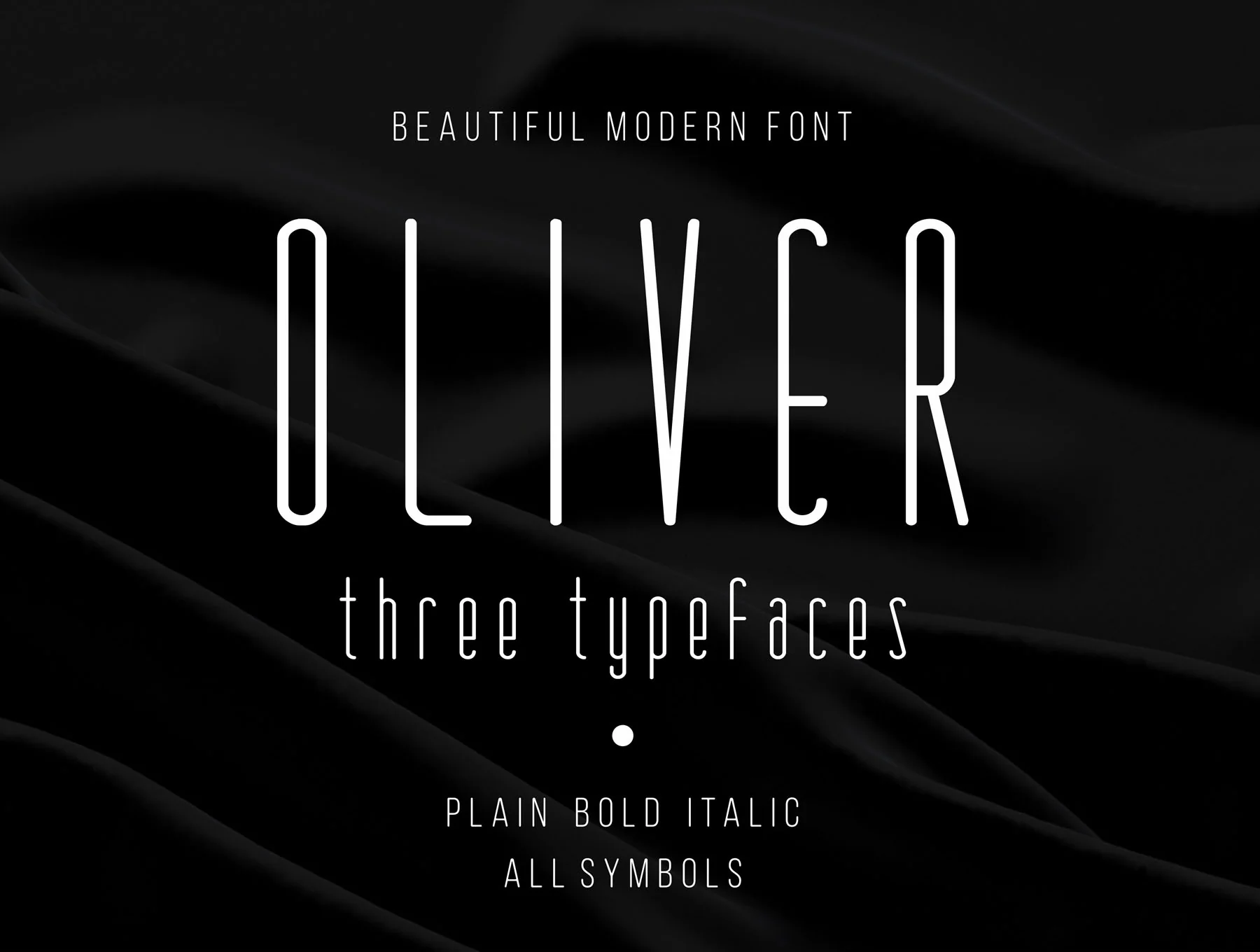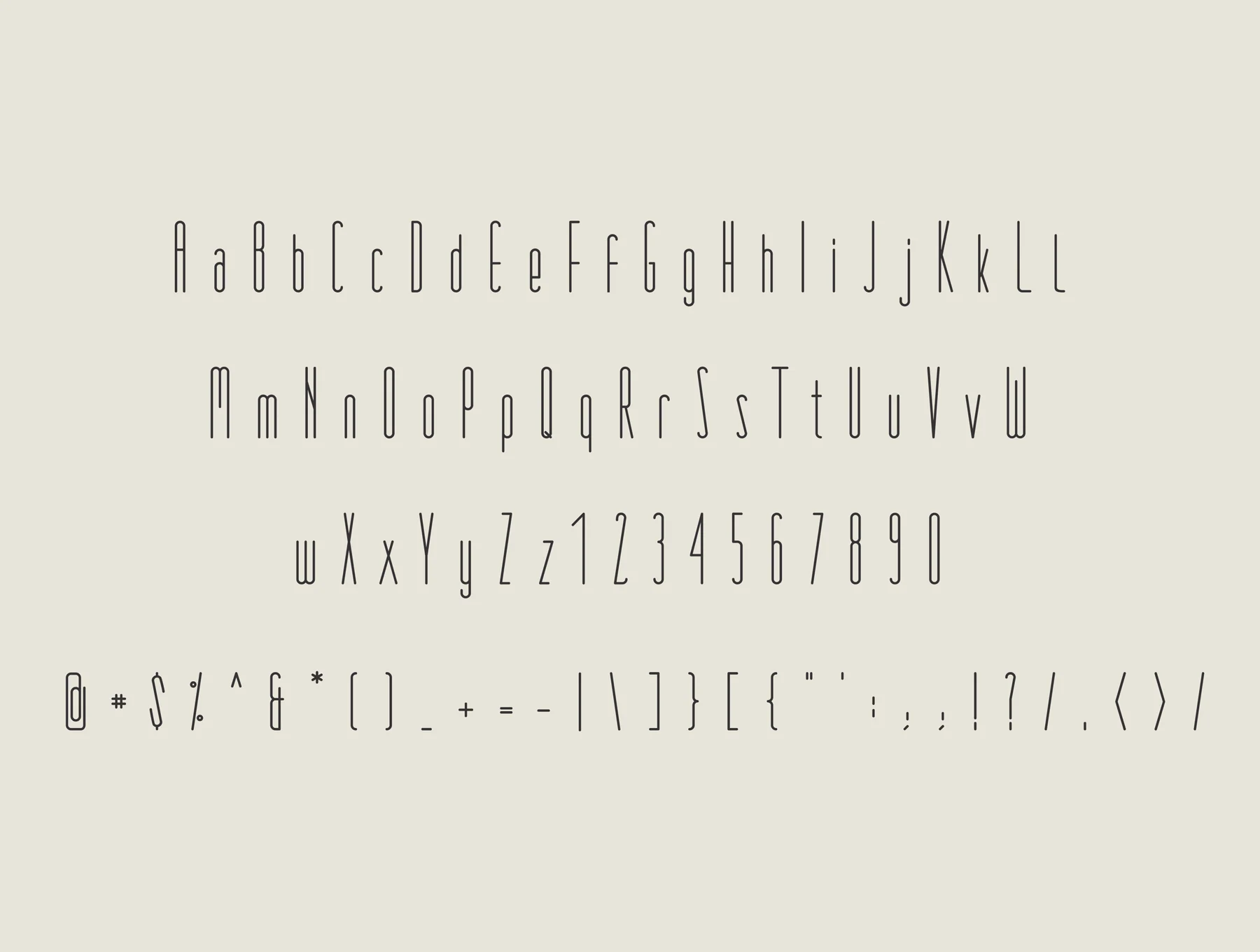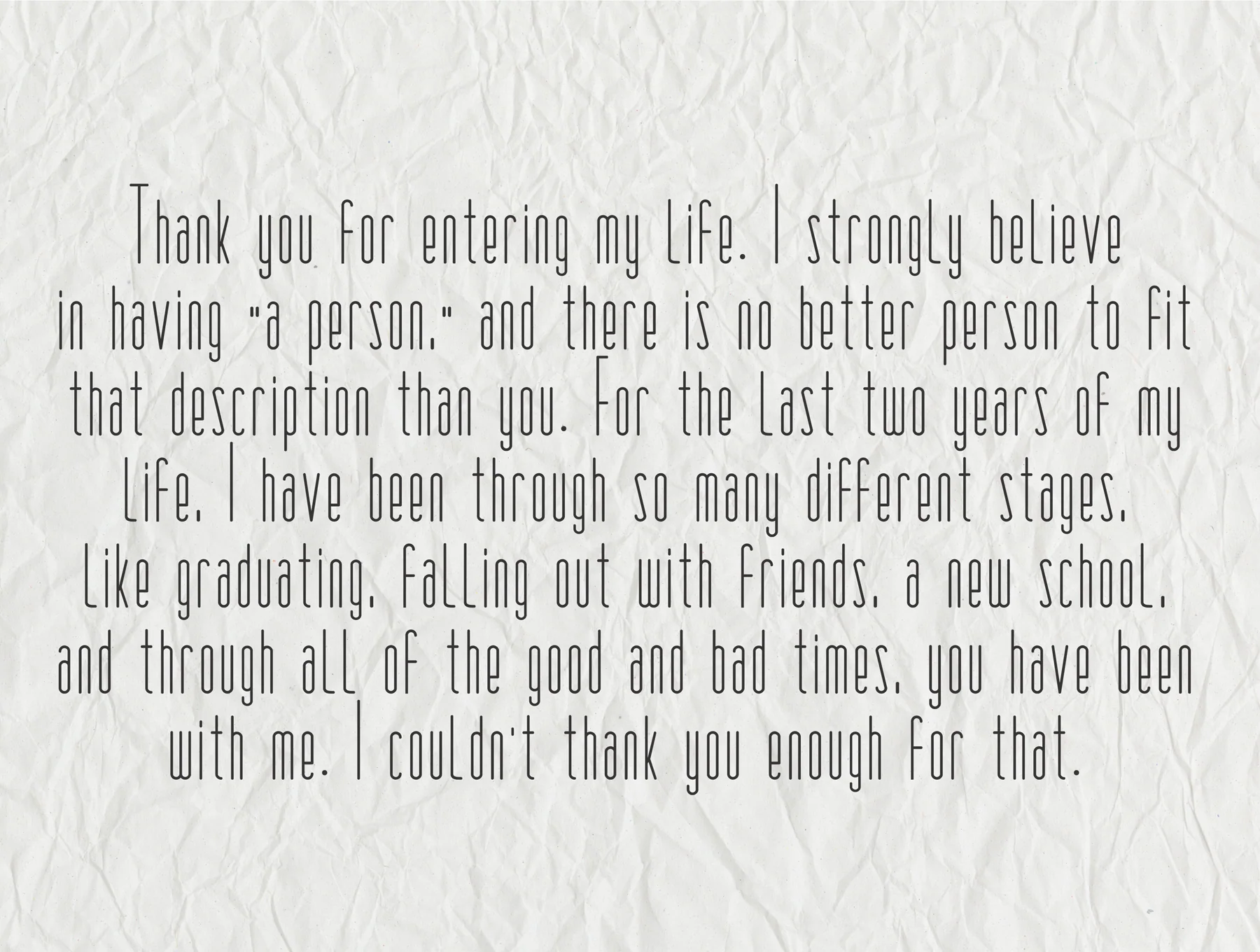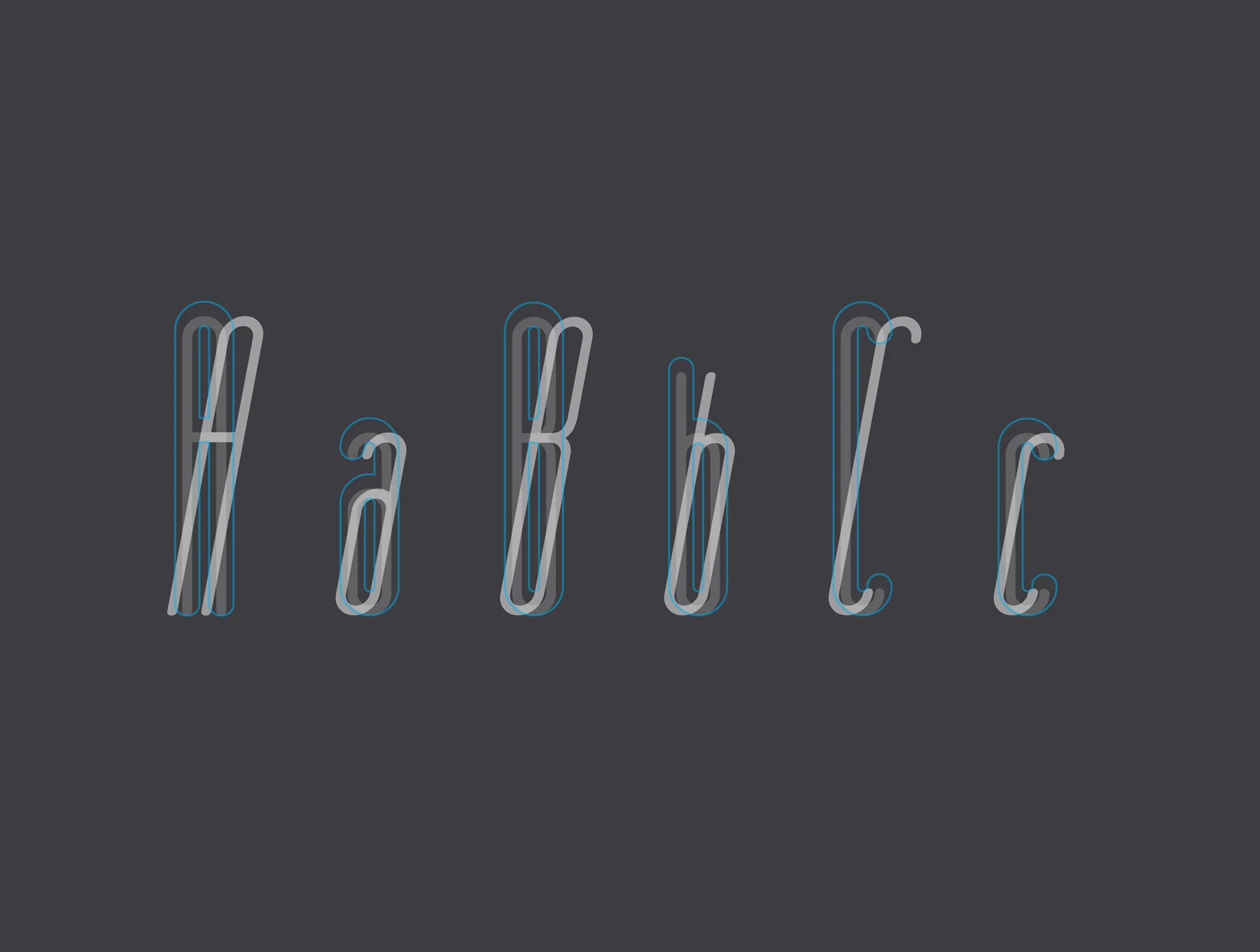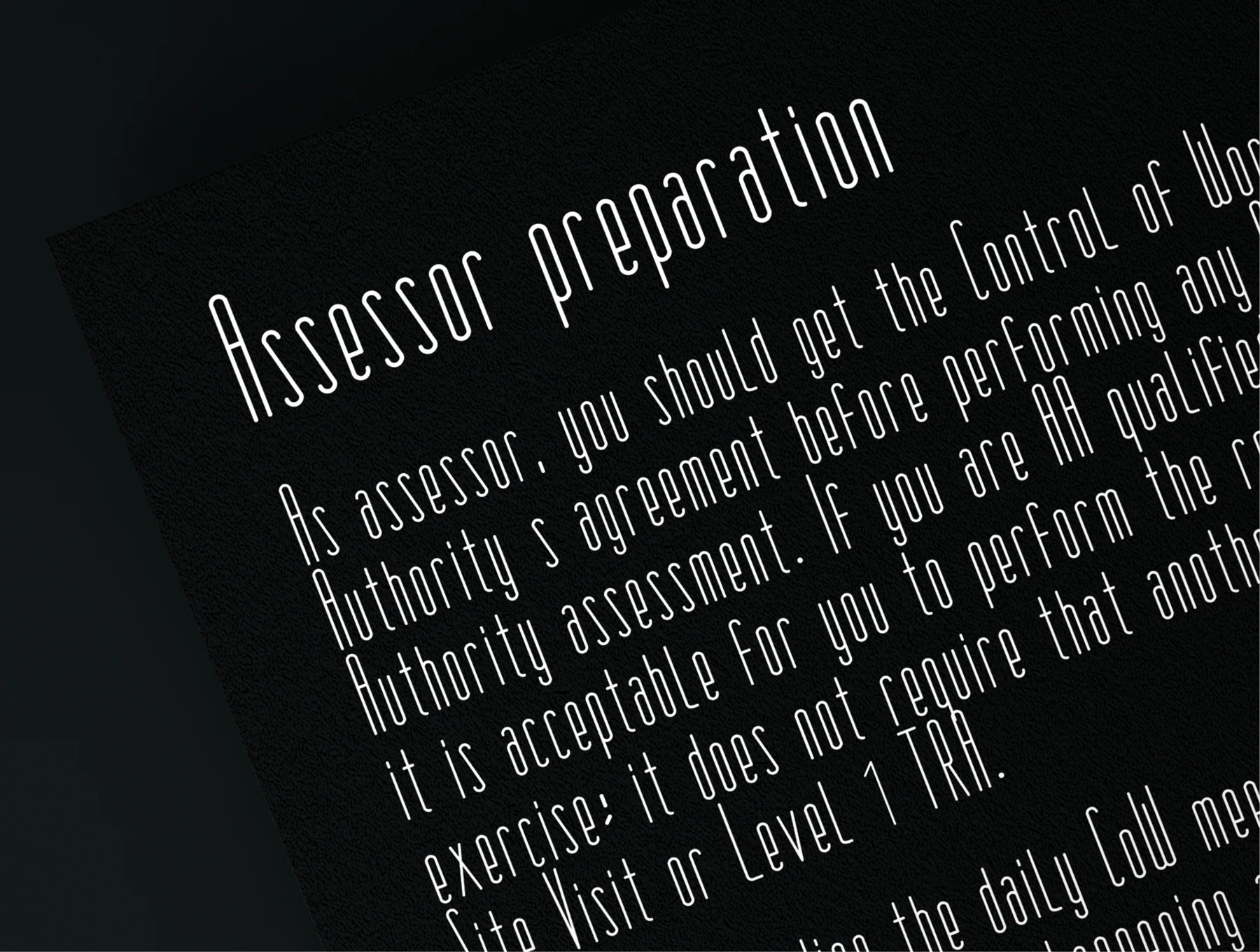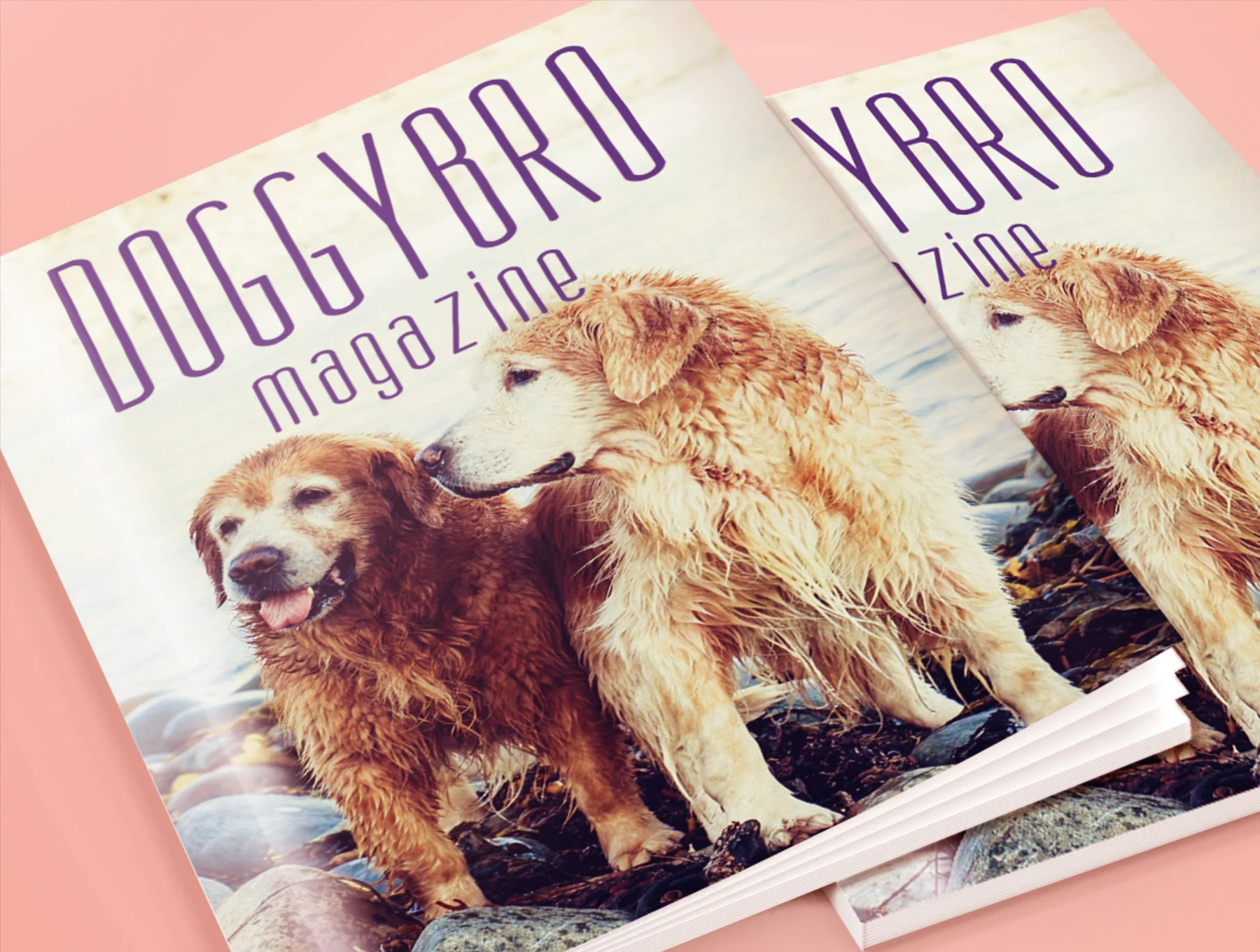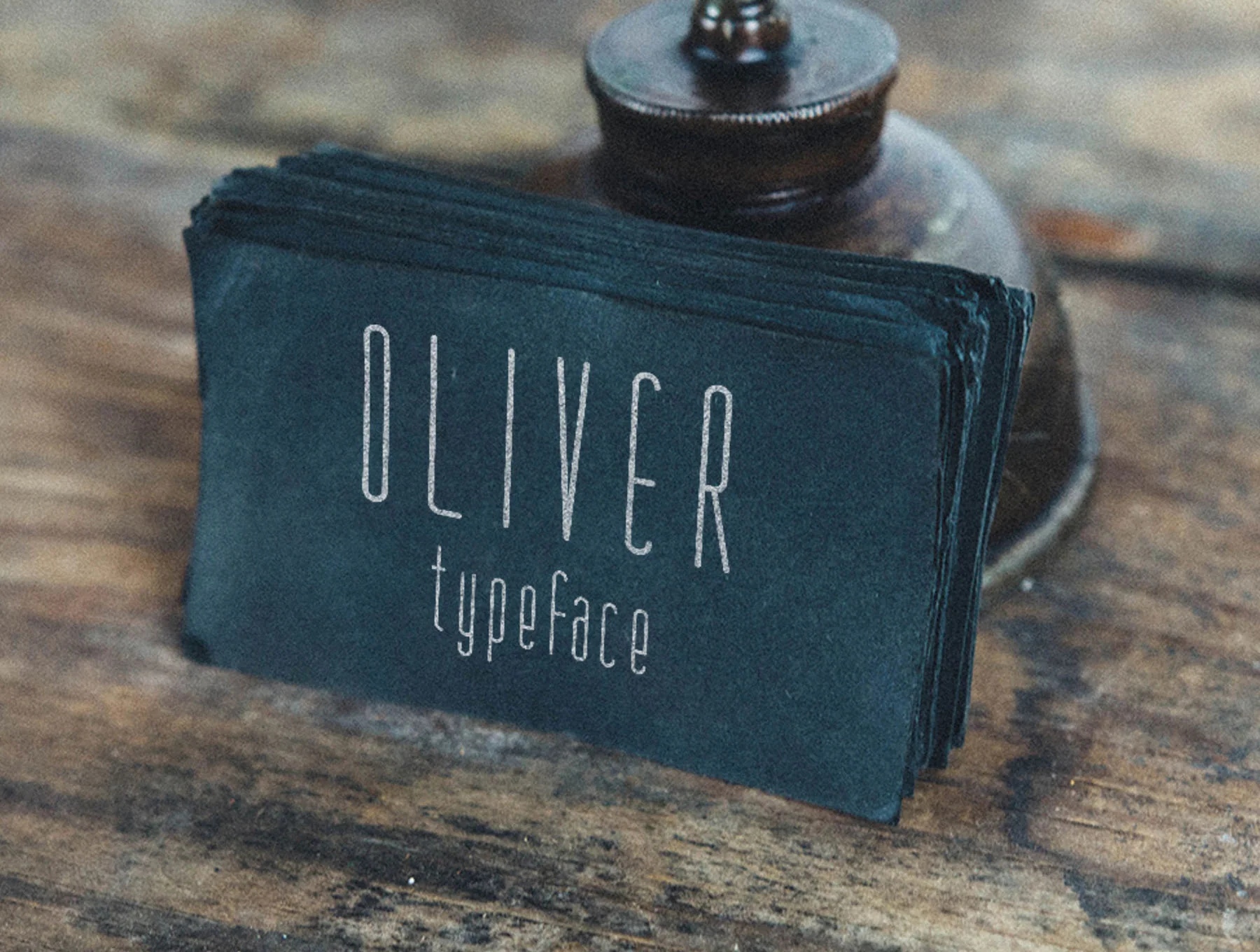
Oliver modern font
Oliver contemporary typeface available in three styles
Contemporary
Retro-inspired
All-purpose
Complete character set
OLIVER is a contemporary typeface suited to a wide range of design projects, from modern layouts to brochure headlines and advertising. Made by experienced designers, it offers a clean, distinctive style with smooth alignment. Includes uppercase and lowercase letters, numbers 0-9, punctuation, and special symbols. Oliver font © 2018